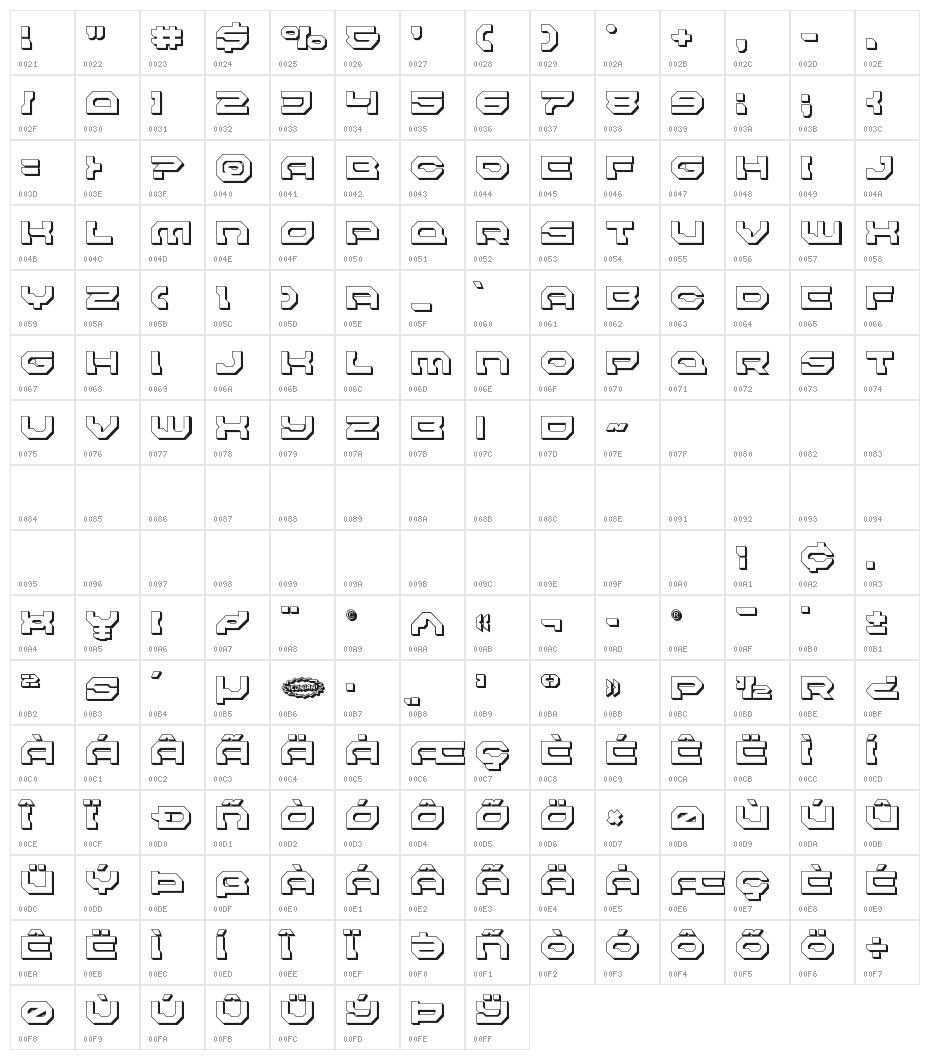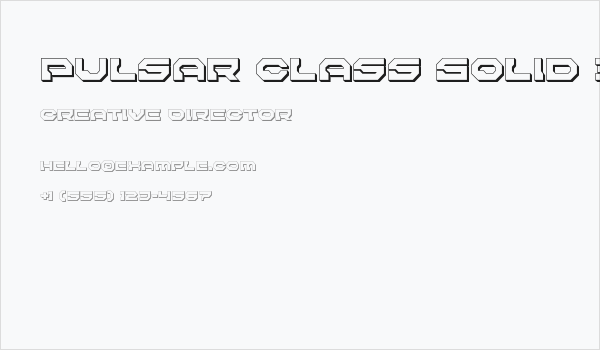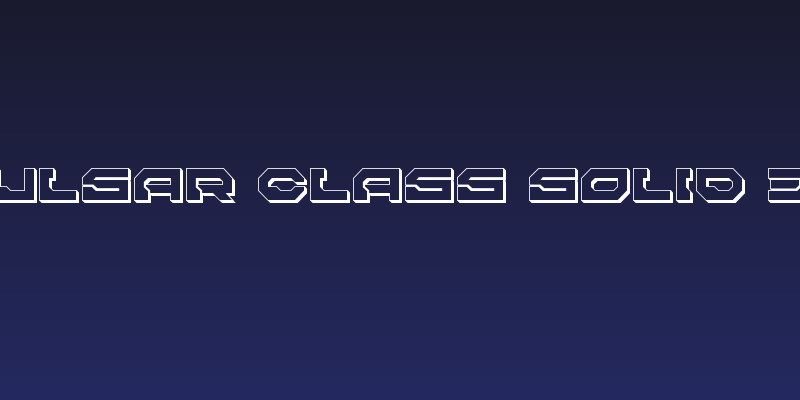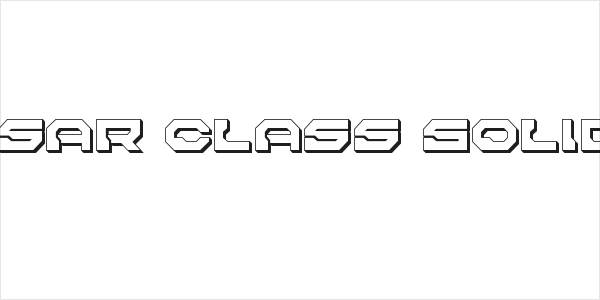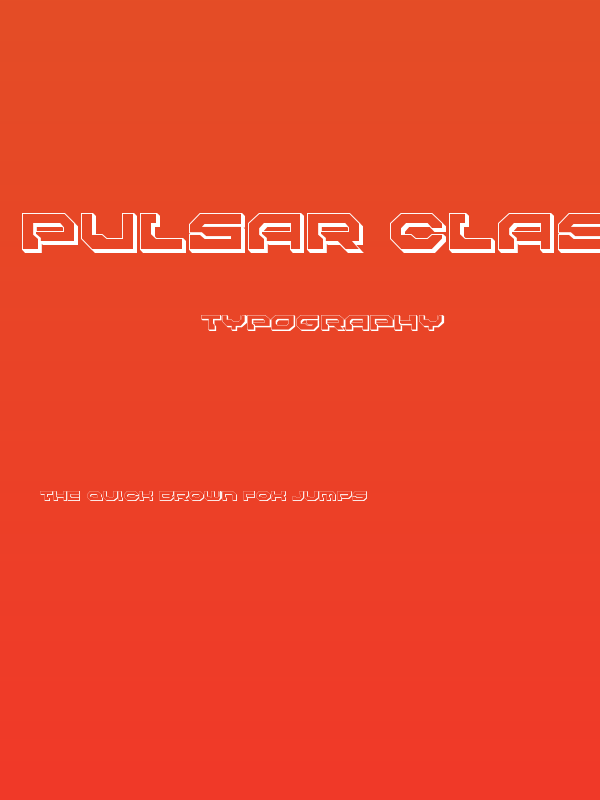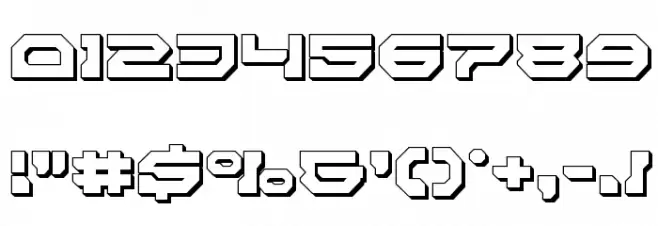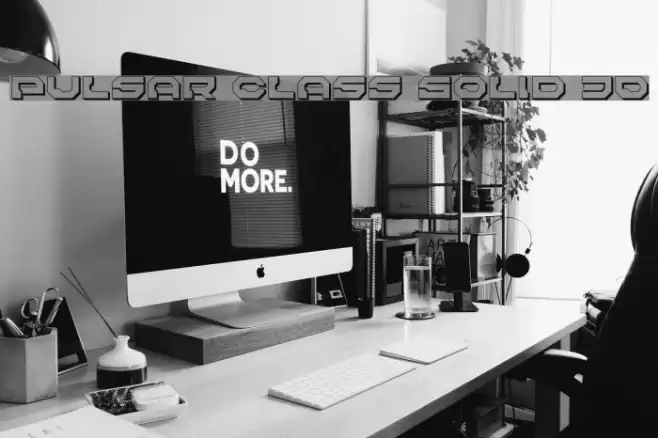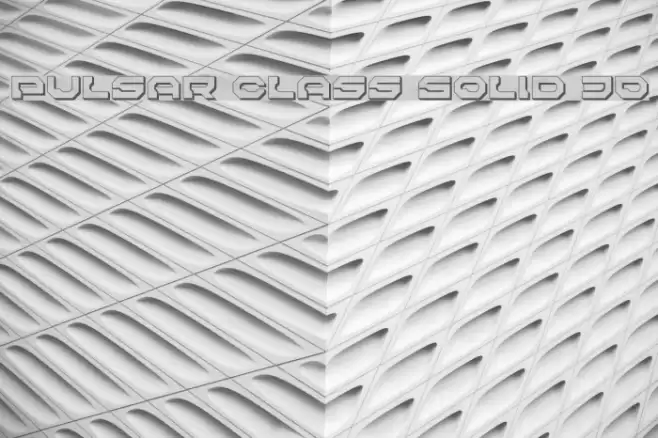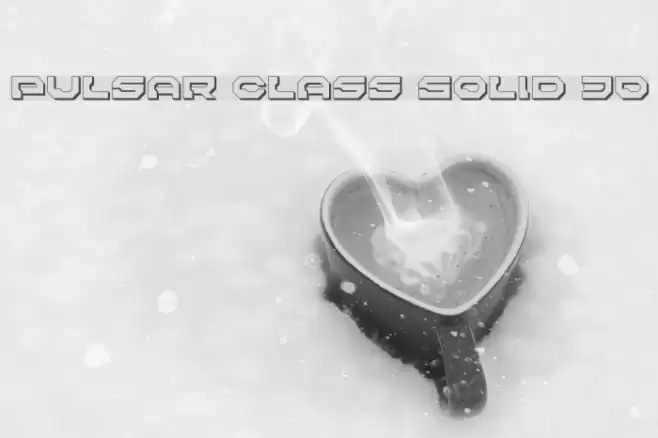
Pulsar Class Solid 3D Font
Pulsar Class Solid 3D Description
This font features a bold, three-dimensional design with a futuristic and geometric aesthetic. Each character is outlined with a shadow effect that gives it a solid, block-like appearance. The uppercase and lowercase letters maintain a consistent style, emphasizing angular lines and sharp edges. The numerals and special characters are designed to match the bold and structured look, making the font suitable for eye-catching displays. The overall design is modern and dynamic, ideal for projects that require a strong visual impact.
| Proposed Projects | Ideal for sci-fi themed designs, video game titles, posters, and branding that requires a modern and bold statement. |